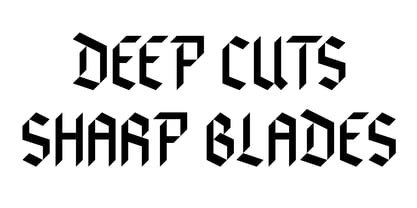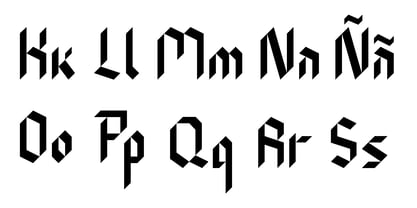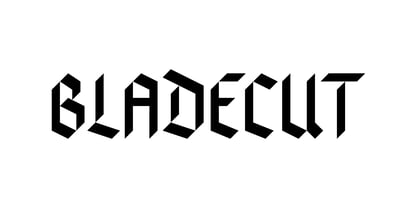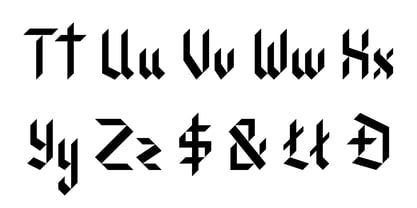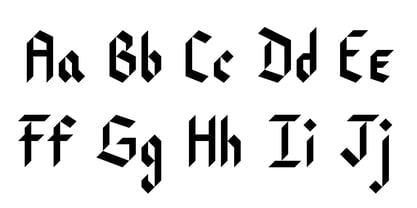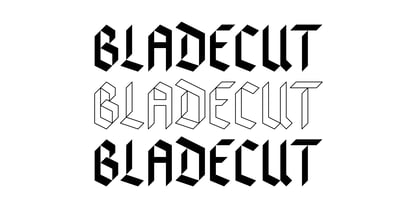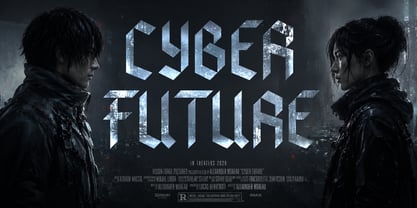
Bladecut
The Bladecut Font Family was designed by Martin Ignacio Haristoy Sandoval and published by Heartcore. Bladecut contains 1 styles. More about this family
Bladecut’s strokes cut deep like a razor’s blade. It is a sharpened typeface with a new gothic style, that leaves a clean cut made with precision. It is sharp like the blade of a knife. Technically, Bladecut is composed of straight, tangent strokes, and piercing corners. It is designed with a decorative style that makes the font shine at large sizes like in billboards, posters or logotypes. Bladecut is still a work in progress as of 2026, with additional kerning pairs being added and further refinements being made to the font.
Heartcore Foundry is characterized by a deep love for glyphs and is owned by Graphic Designer Martin Haristoy, who after graduating college started right away designing his first gothic font called Bladecut. He really likes typography and the art and love behind it so he shares that love and dedication with us through Heartcore Foundry. Martin believes that fonts are not just functional but also a beautiful form of expression, making them an essential part of graphic design as a creative endeavor.